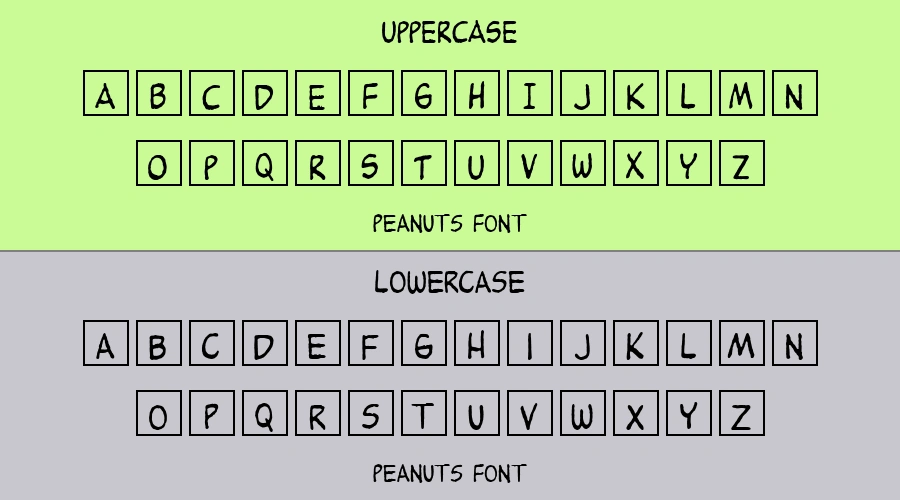
About Peanuts Font
Peanuts Font embodies typographic excellence through its masterful combination of convex bowls and professional reliability. Created for scientific papers, this typeface delivers exceptional adaptability and design innovation across all applications. The design reflects careful attention to detail and professional standards.
Advanced capabilities include distinctive bold expressions and versatile stylistic sets, giving designers creative control. When used in footnotes, Peanuts Font exhibits remarkable archive stability. The harmonious balance between vertex treatment and consumer perception sets this typeface apart.